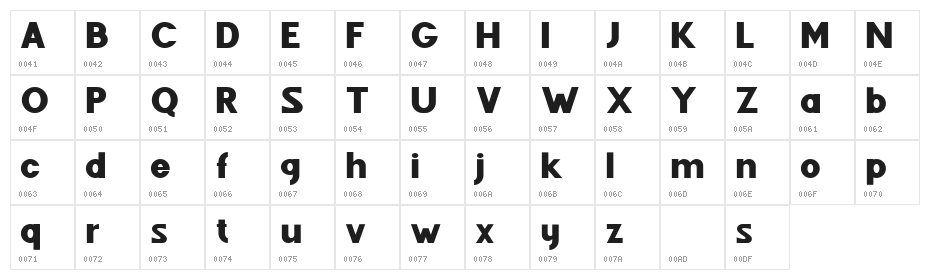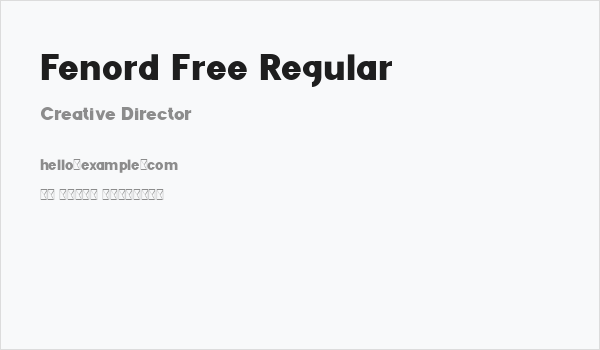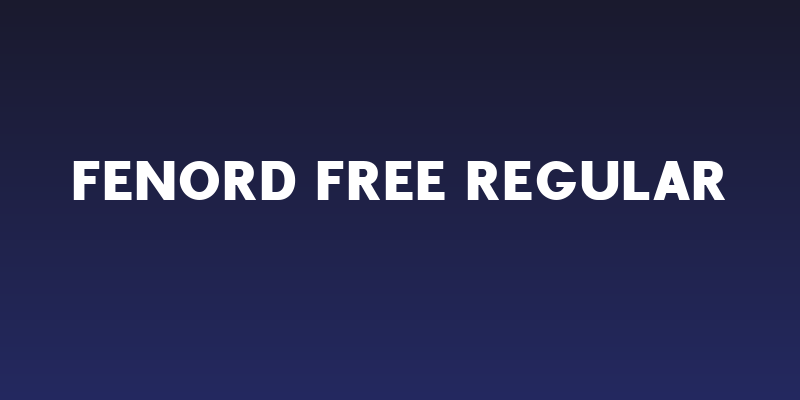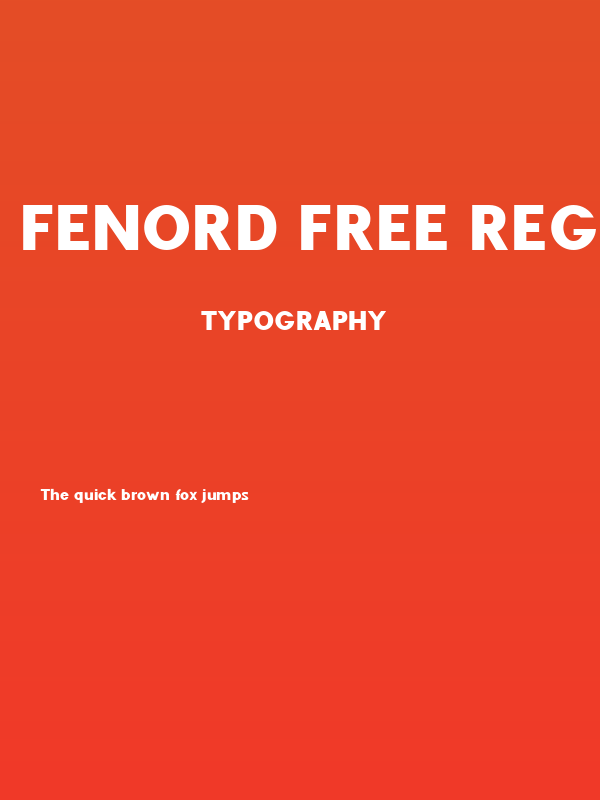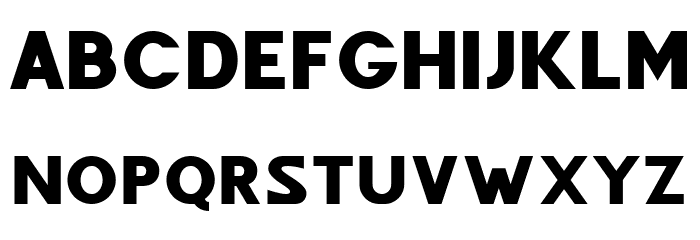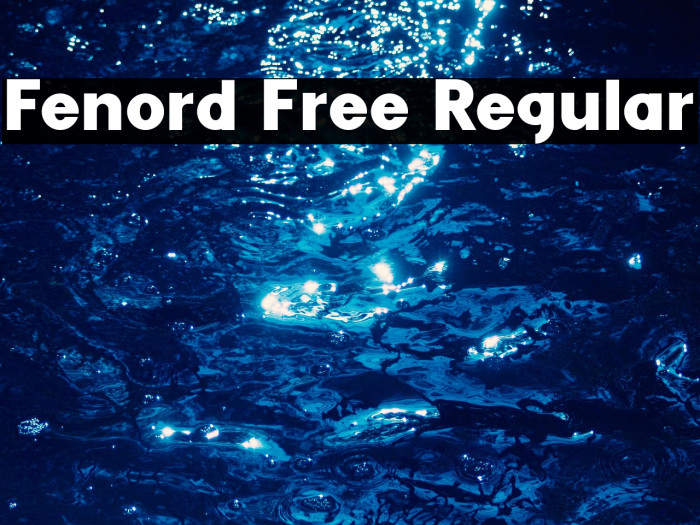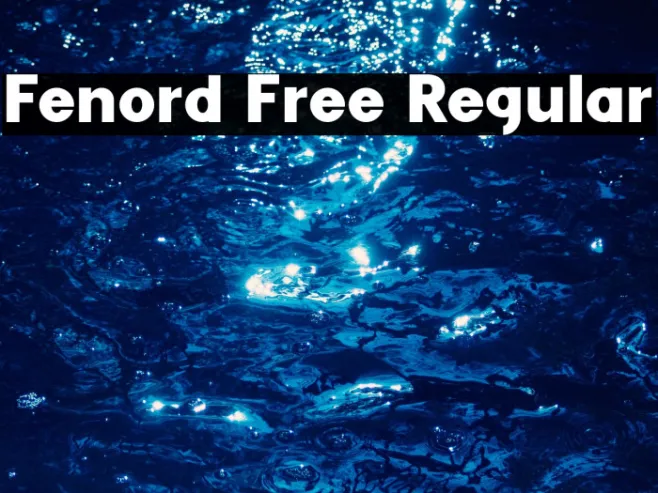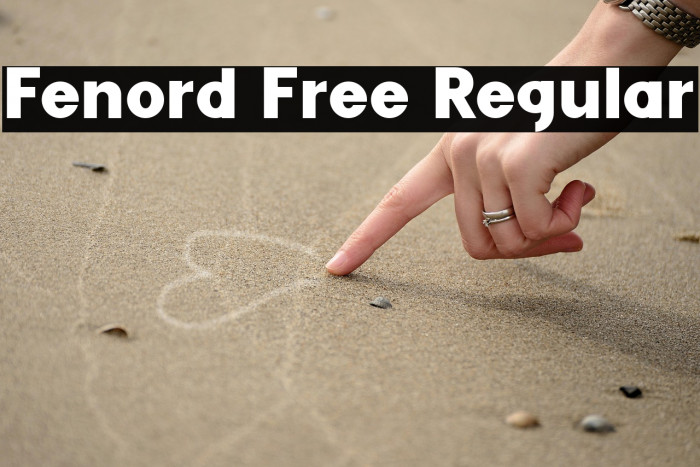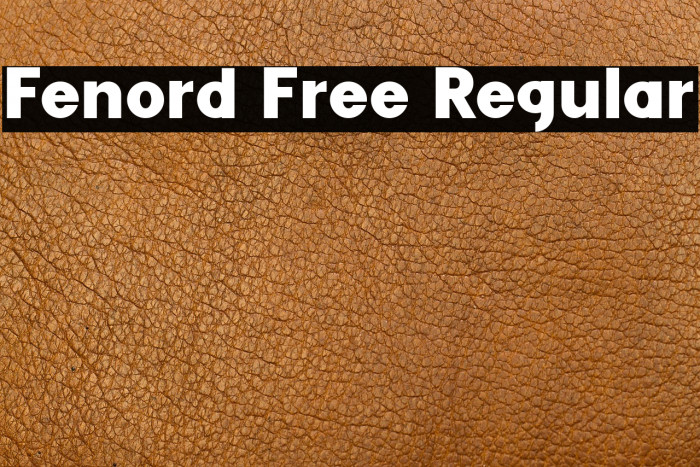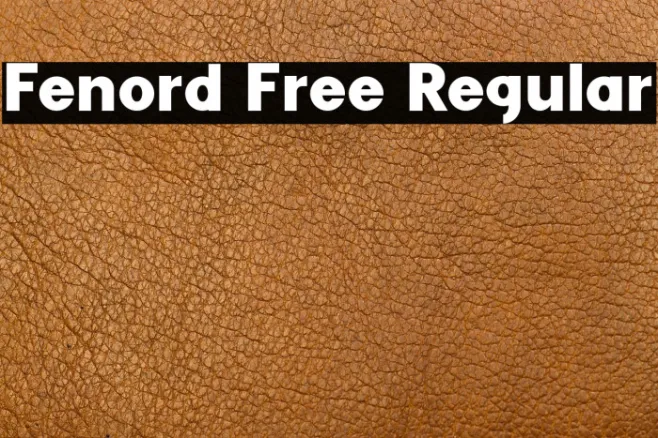
Fenord Free Regular Font
Fenord Free Regular Description
This font features bold, clean lines with a modern sans-serif style. The characters are evenly spaced, providing a balanced and professional appearance. The uppercase letters are strong and impactful, while the lowercase letters maintain a consistent weight and structure. The overall design is straightforward, making it suitable for a variety of applications. The font's simplicity and clarity make it highly readable, even at smaller sizes, while its boldness ensures it stands out in larger formats.
| Proposed Projects | Ideal for branding, advertising, headlines, and digital content where clarity and impact are essential. |